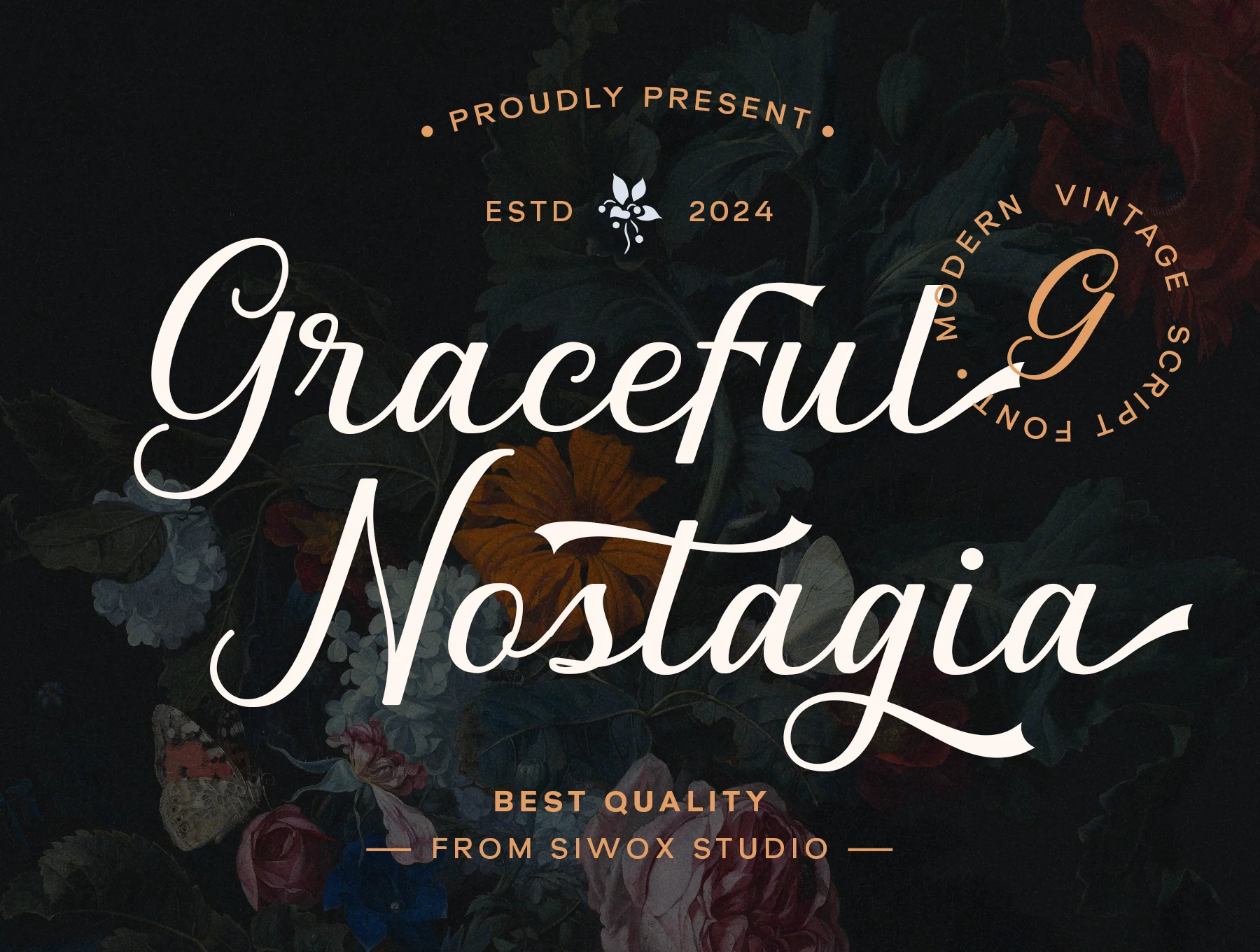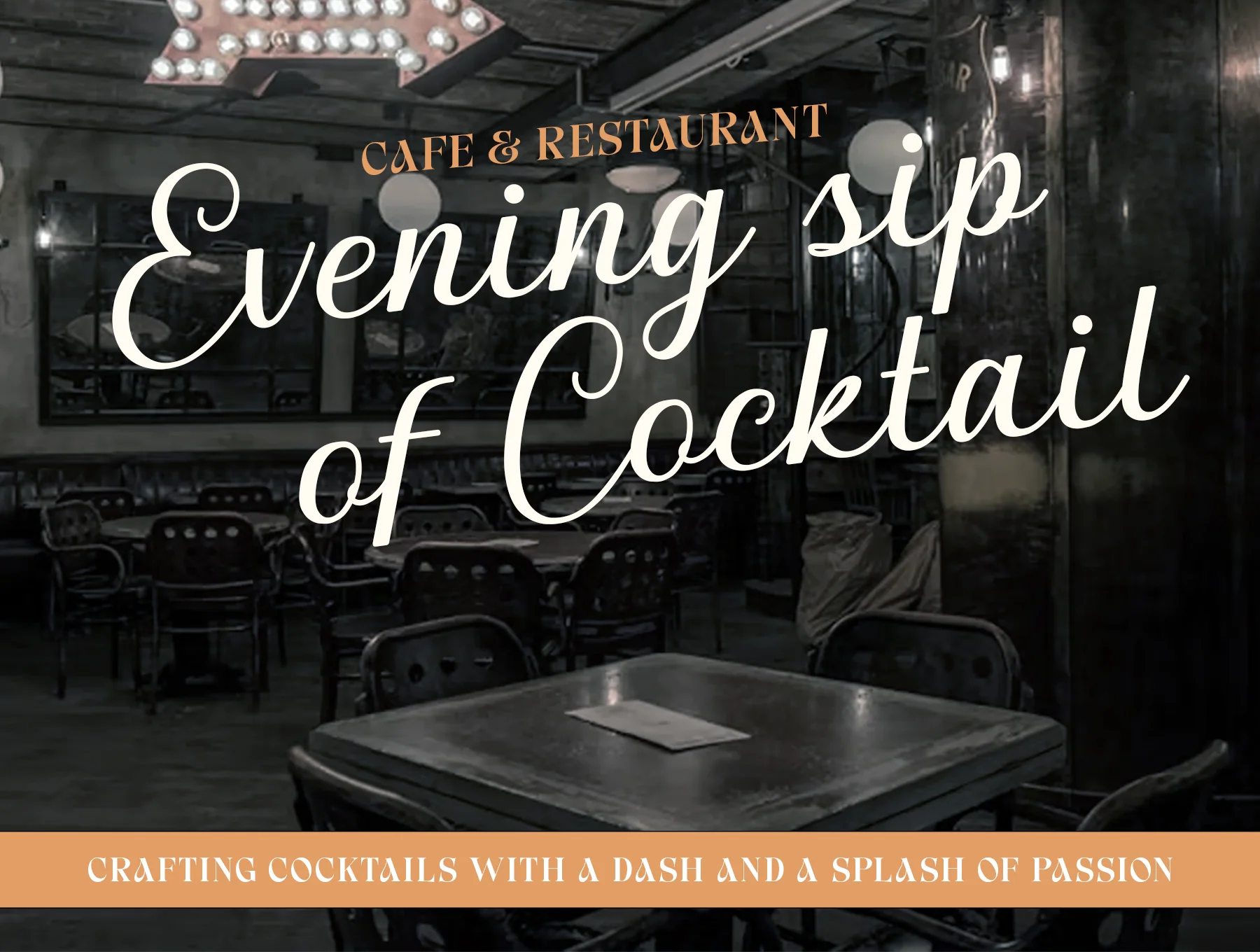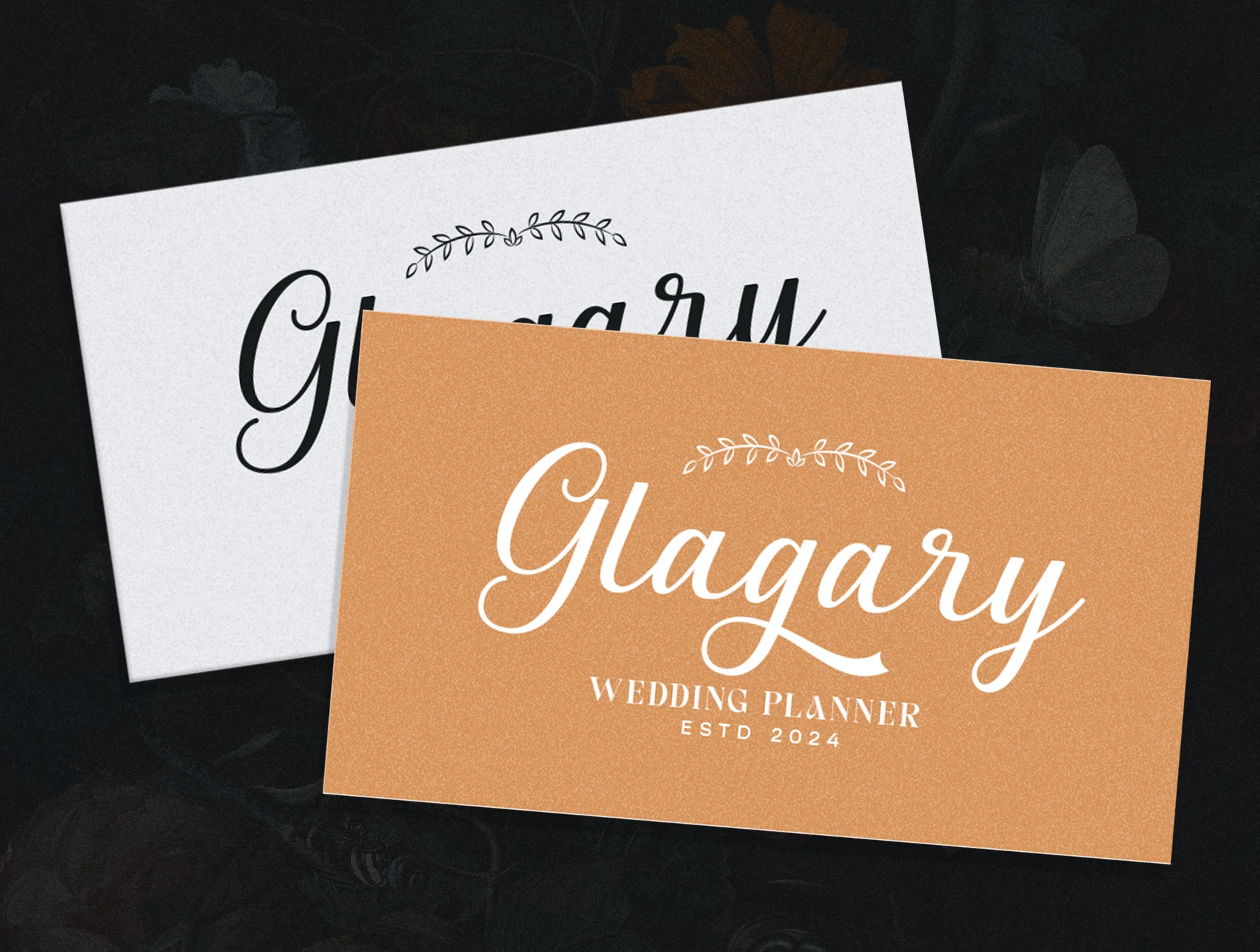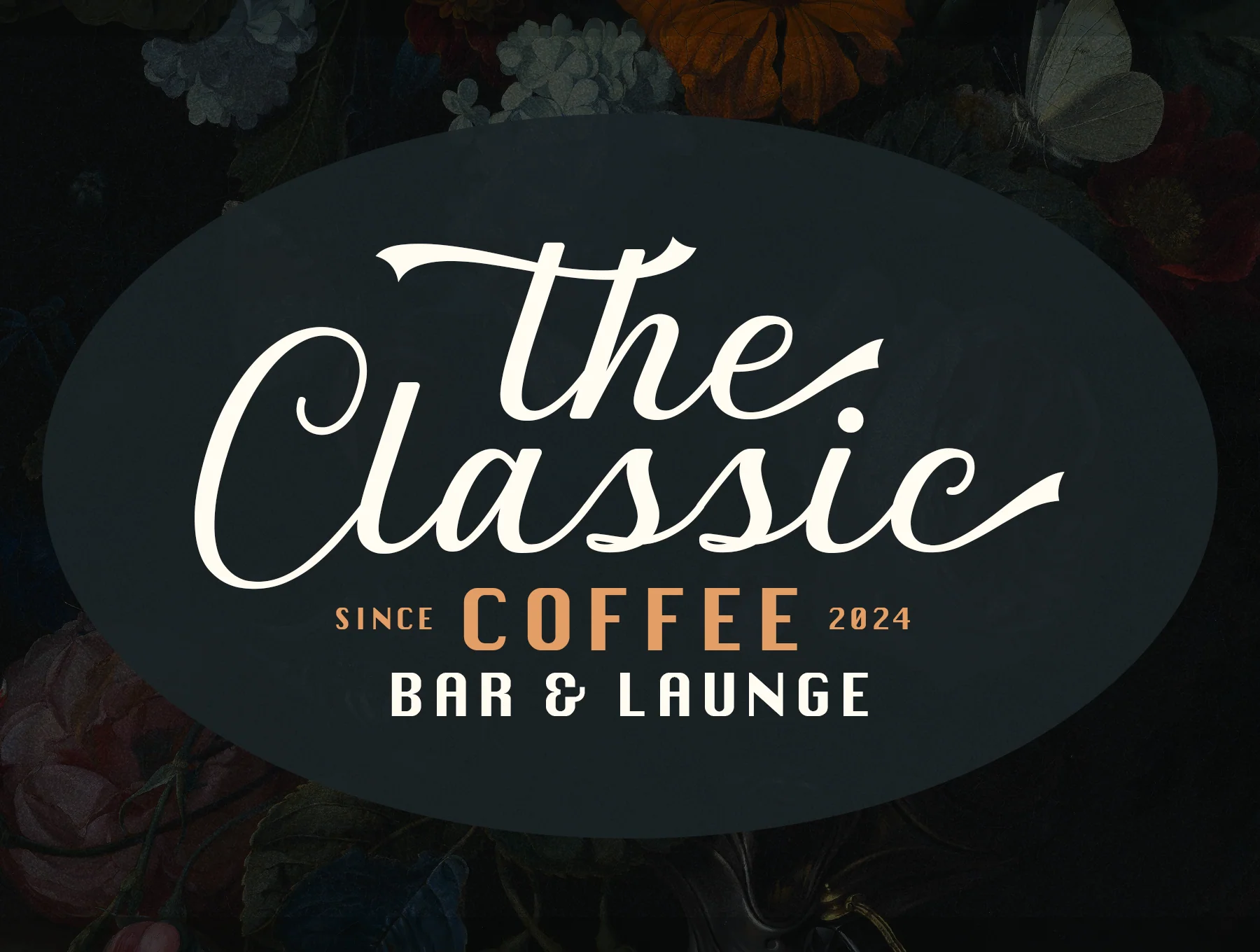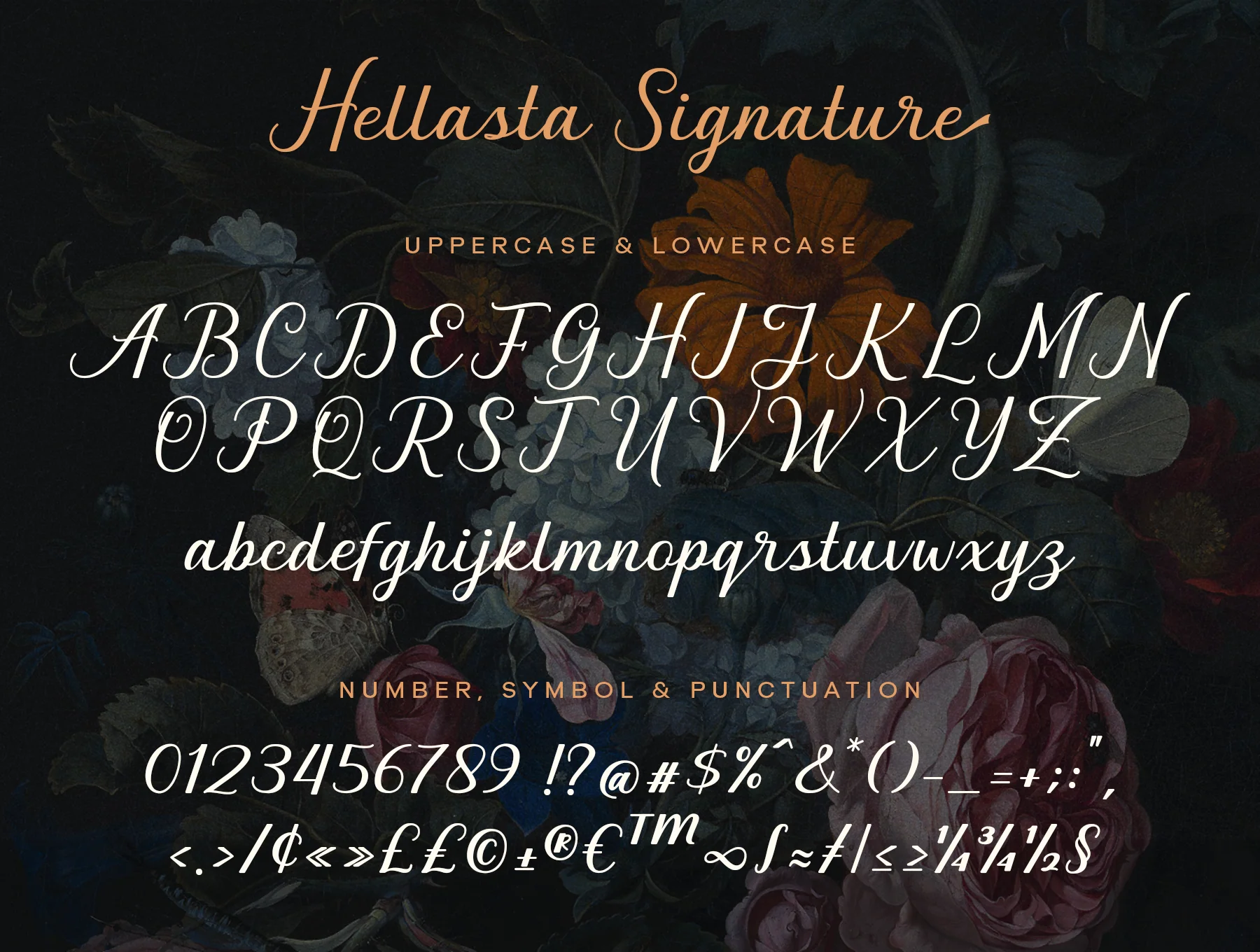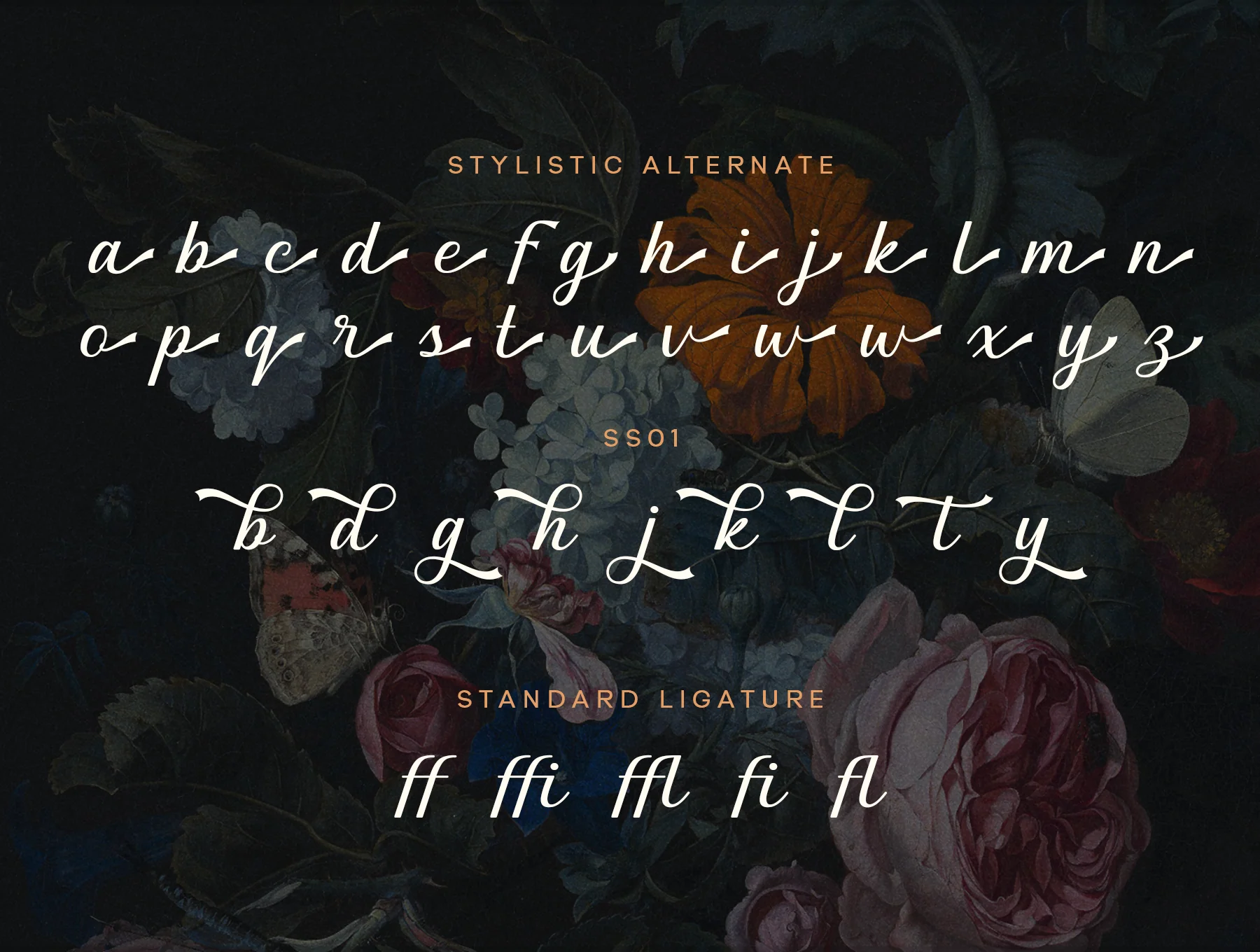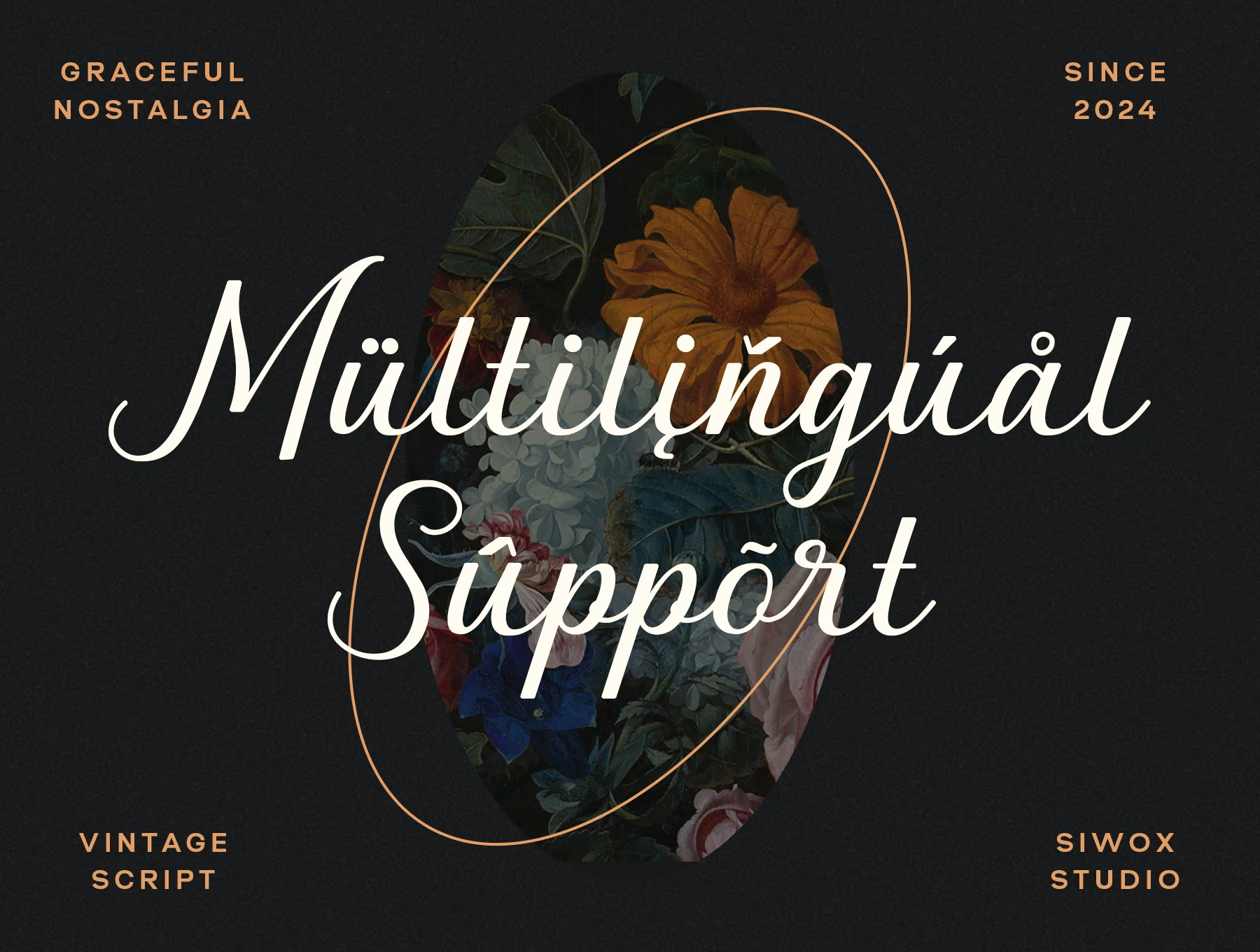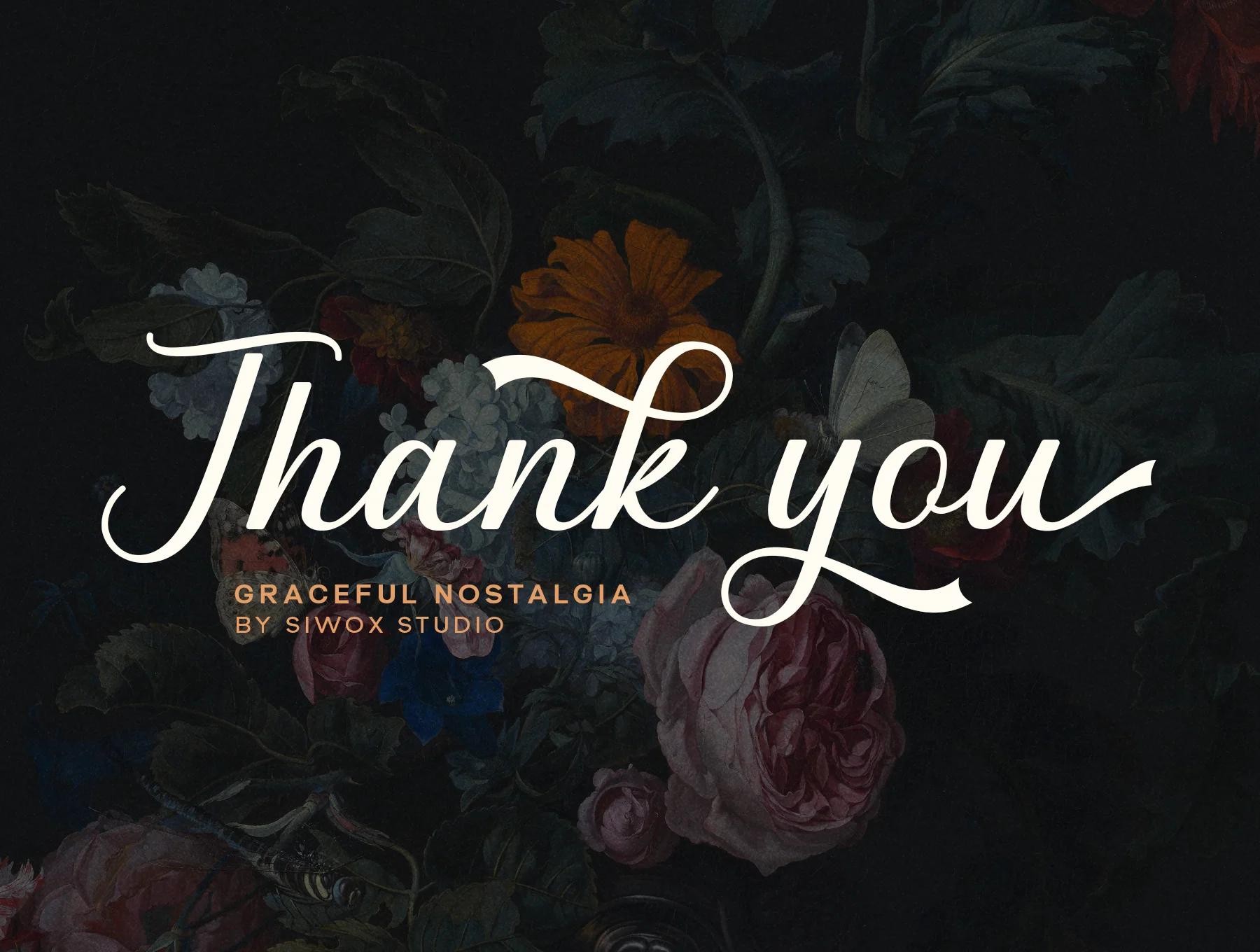
Graceful Nostagia Script Font
an elegant handwritten calligraphy font
Complete A-Z and a-z character range
International glyphs, numbers, and punctuation marks
Ligature support with stylistic alternate forms
Graceful Nostalgia is an elegant script typeface with a retro spirit, ideal for logos, invites, labels, publications, cards, packaging, fashion projects, and stationery. Includes TTF, OTF, WOFF, and WOFF2 files. Alternates are accessible via Adobe apps, Corel, MS Office, Character Map, Font Book, Nexus Font, or PopChar.